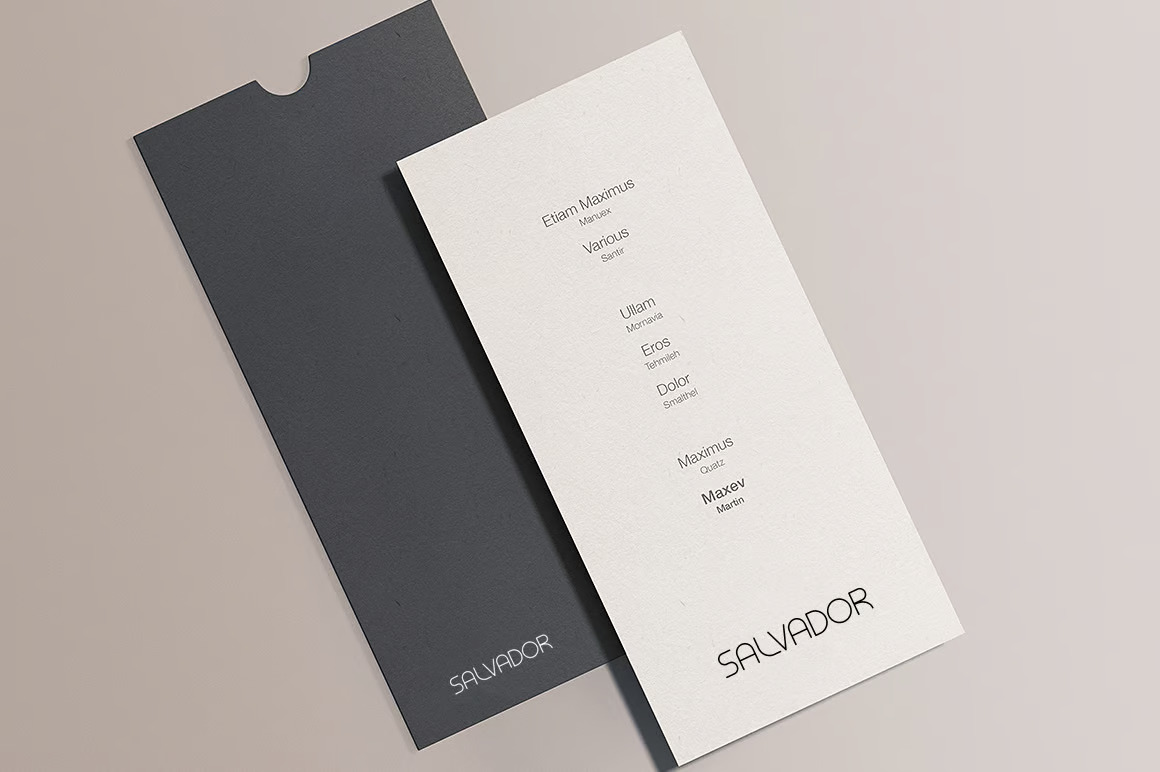
Tangsel Sans serif is a clean and minimal sans serif font. It’s the ideal font for adding romance & charm to your next design projects!
Features:
- Uppercase & Lowercase
- Number
- Punctuation & Symbol
- Multilingual support